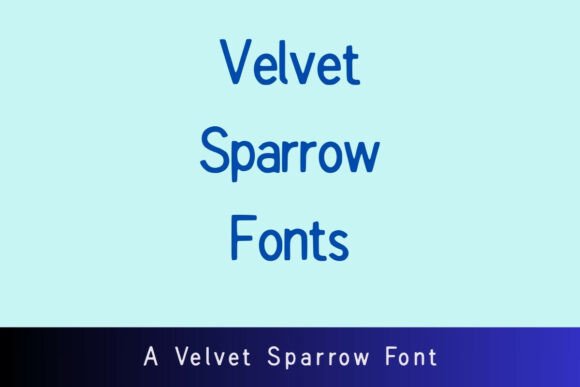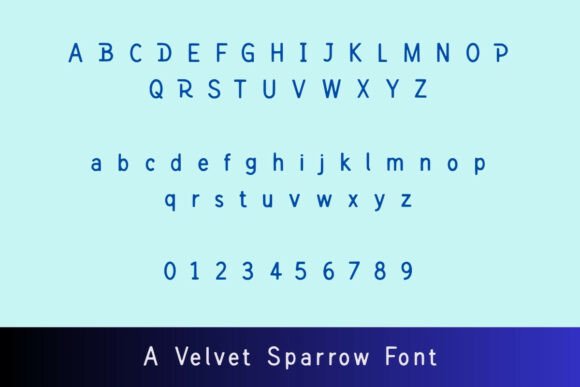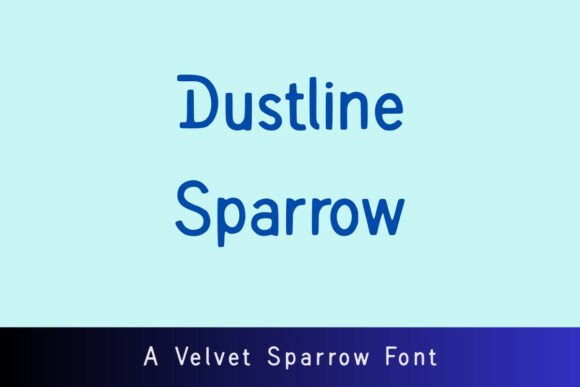
Dustline Sparrow Font: A Soft and Gentle Lettering Style for Everyday Designs
Are you looking for a font that exudes warmth, clarity, and quiet personality? Look no further than Dustline Sparrow, a soft, rounded lettering style that is perfect for a wide range of everyday designs. With its smooth curves and subtle irregularities, this font is sure to bring a calm and natural feel to your projects.
The Characteristics of Dustline Sparrow
Dustline Sparrow is a unique font that boasts a gentle, slightly worn character. Its rounded letterforms are smooth and inviting, making it perfect for designs that require a friendly and approachable tone. The font’s subtle irregularities add a touch of handmade charm, giving it a distinctive feel that sets it apart from more traditional fonts.
One of the standout features of Dustline Sparrow is its versatility. This font works beautifully across a wide range of designs, from journaling and planners to labels, headings, and quotes. Its calm and natural feel makes it an excellent choice for branding accents and casual display text, and its friendly and modern personality ensures that it pairs well with minimalist or handmade layouts.
Uses for Dustline Sparrow
So, what can you use Dustline Sparrow for? The possibilities are endless! Here are just a few ideas to get you started:
- Journaling: Add a personal touch to your journal entries with Dustline Sparrow’s soft and gentle lettering style.
- Planners: Use Dustline Sparrow to add a touch of warmth and personality to your planner pages.
- Labels: Create beautiful and functional labels with Dustline Sparrow’s clear and easy-to-read letterforms.
- Headings: Add a touch of elegance to your headings with Dustline Sparrow’s smooth curves and subtle irregularities.
- Quotes: Use Dustline Sparrow to add a touch of inspiration and motivation to your quote designs.
- Branding Accents: Add a personal touch to your branding with Dustline Sparrow’s friendly and modern personality.
- Casual Display Text: Use Dustline Sparrow to add a touch of warmth and personality to your display text.
Why Choose Dustline Sparrow?
So, why should you choose Dustline Sparrow for your next design project? Here are just a few reasons:
- Versatility: Dustline Sparrow works beautifully across a wide range of designs and applications.
- Warmth: This font exudes warmth and personality, making it perfect for designs that require a friendly and approachable tone.
- Clarity: Dustline Sparrow’s clear and easy-to-read letterforms make it perfect for designs that require a high level of legibility.
- Quiet Personality: This font has a quiet and understated personality that works beautifully with minimalist or handmade layouts.
Pairing Dustline Sparrow with Other Fonts
One of the best things about Dustline Sparrow is its ease of pairing with other fonts. Its friendly and modern personality makes it a great match for a wide range of font styles, from minimalist sans serifs to elegant scripts. Here are a few tips for pairing Dustline Sparrow with other fonts:
- Pair with a sans serif: Dustline Sparrow pairs beautifully with clean and modern sans serif fonts, such as Open Sans or Lato.
- Pair with a script: Add a touch of elegance to your designs by pairing Dustline Sparrow with a beautiful script font, such as Pacifico or Great Vibes.
- Pair with a serif: Dustline Sparrow also pairs well with traditional serif fonts, such as Georgia or Times New Roman.
In conclusion, Dustline Sparrow is a beautiful and versatile font that is perfect for a wide range of everyday designs. Its soft and gentle lettering style, smooth curves, and subtle irregularities make it a great choice for designs that require warmth, clarity, and quiet personality. Whether you’re a designer, crafter, or DIY enthusiast, Dustline Sparrow is sure to become a favorite in your font collection.